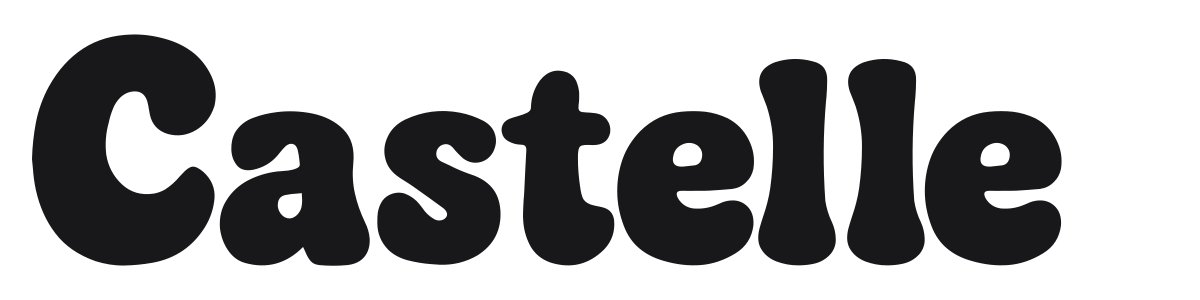
Castelle
Castelle is a heavy rounded serif with a deep 1970s groovy personality, built from thick curves and plump terminals that give every character an almost inflated softness. The bold weight and exuberant curves make it impossible to ignore at large sizes. It brings instant retro warmth to packaging, posters, and brand identity work.